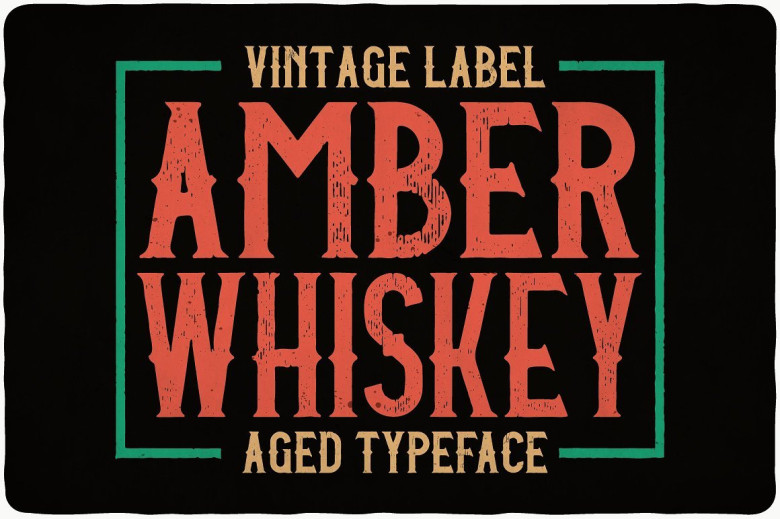
Amber Whiskey Typeface
Introducing AmberWhiskey. It is designed by OlegVoznyy, this is a premium font, are sold on creativemarket, but it was great, it is free today for download. AmberWhiskey is a vintage look label typeface. This typeface includes four styles, for sample look at 3rd preview. Typeface will good viewed on any yours design.